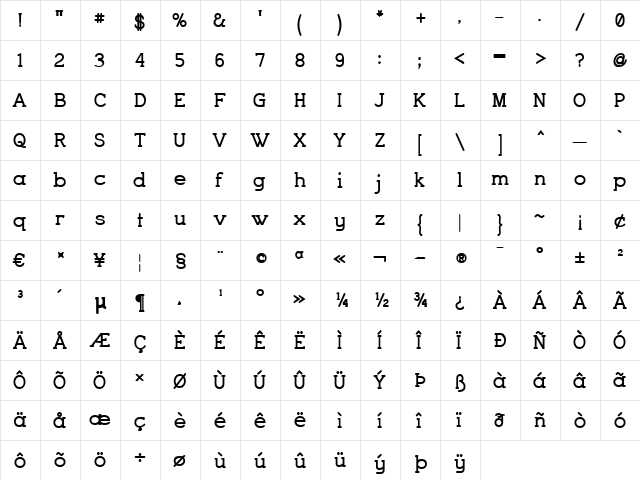
Charrington Bold
| Designer | Graham Meade |
Design Context for Charrington Typeface
Charrington is a composed and adaptable typeface that performs quietly and consistently across a wide range of design contexts. Its bold stroke weight gives it real presence on the page.